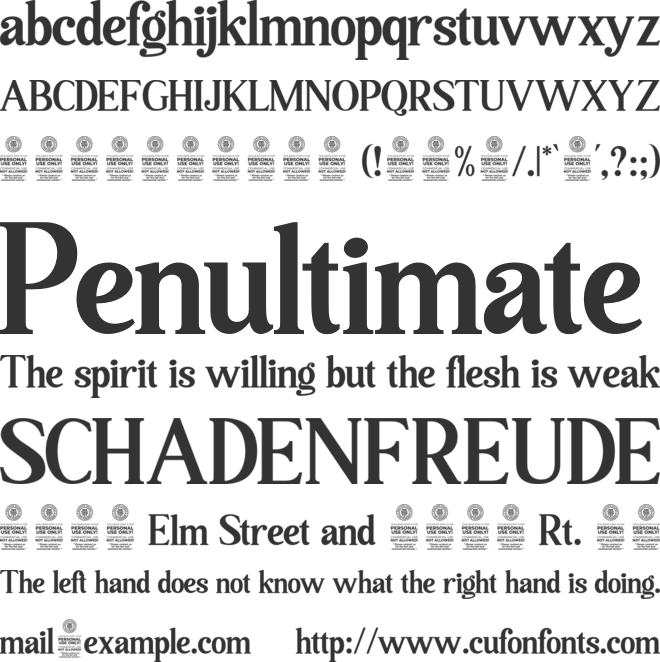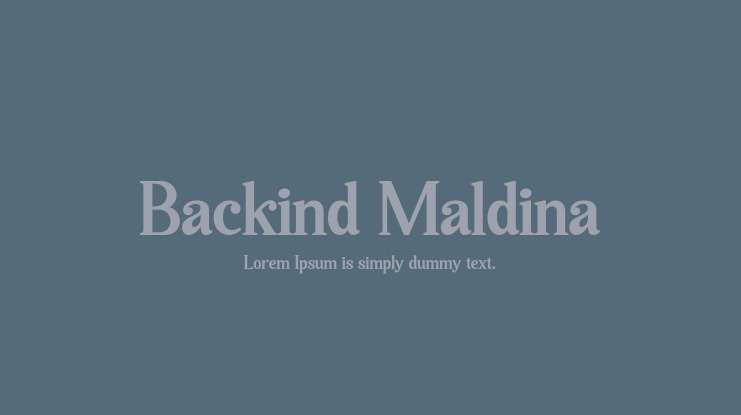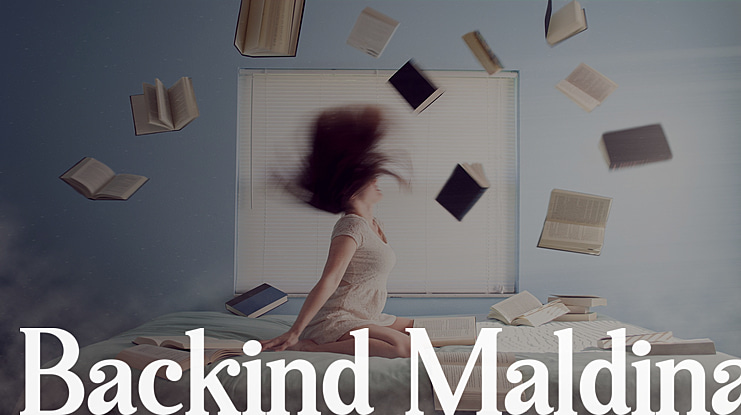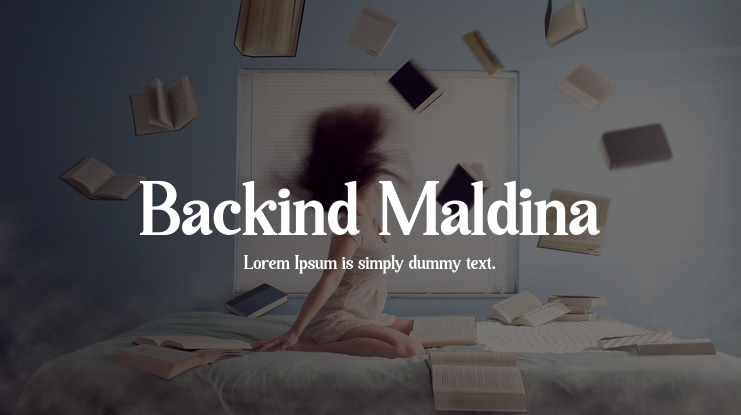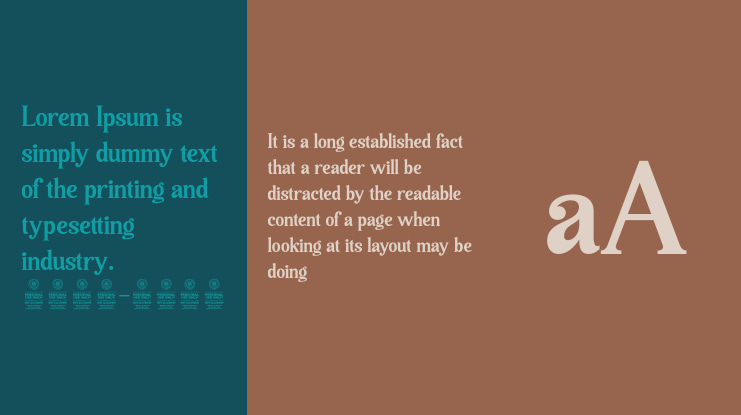
Backind Maldina Font
It’s a modern stylistic serif typeface with extra ligatures and alternates in a unique shape just to add value to your brand. This font is perfect for branding, logos, social media, advertisements, product packaging, watermark, invitation, stationery, tshirt, prints, posters and more.